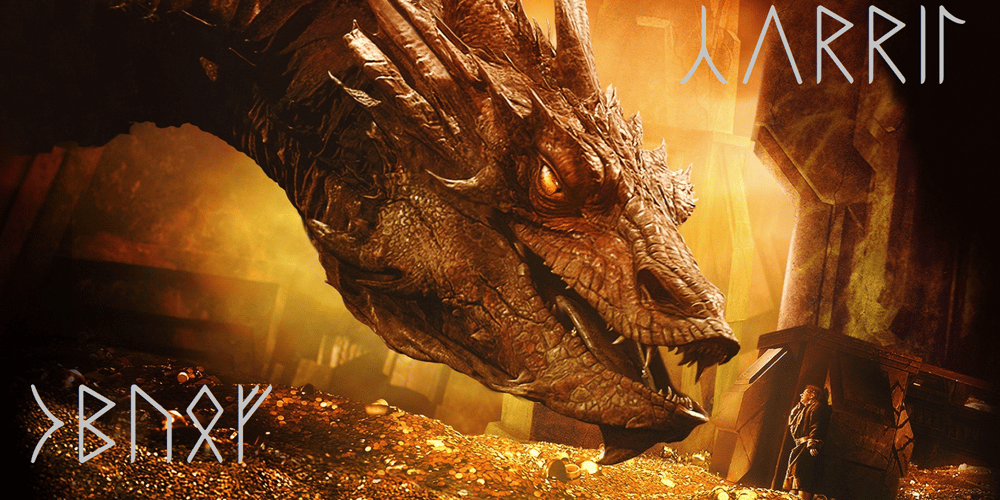
Ongunkan Tolkien Cirth Runic Font Family was designed by Osman Nuri ALKAN and published by Runic World Tamgacı. Ongunkan Tolkien Cirth Runic contains 1 styles and family package options. Cirth was invented by John Ronald Reuel Tolkien for use in his novels. It is modelled on the Anglo-Saxon Runic alphabet, and is used to write the language of the Dwarves (Khuzdul) in The Hobbit and The Lord of the Rings in inscriptions in wood and stone. It is also used as a alternative alphabet for English.The fonts here are both the hobbit version and the version for English.